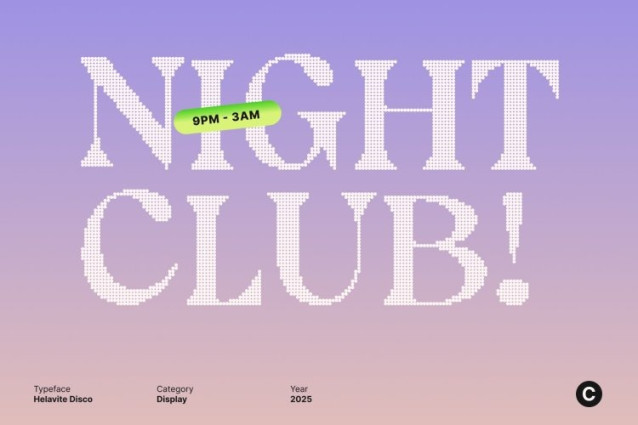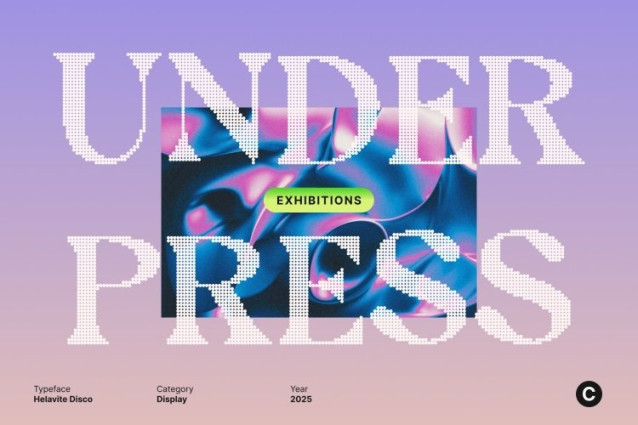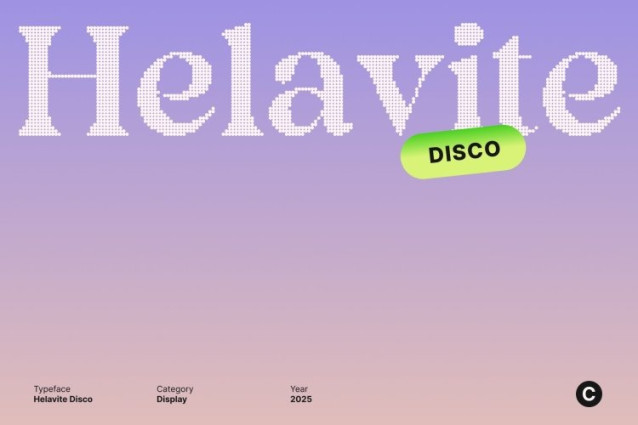
Helavite Disco Font
Helavite Disco Font is a modern serif display font that captures the glamour of disco culture with a refined, contemporary edge. Its elegant letterforms are enhanced by a shimmering vibe that evokes the glow of retro dance floors, creating a look that’s both nostalgic and modern.
Retro Influence with Modern Refinement
Blending vintage disco charm with modern serif precision, this font offers a unique visual rhythm. Its sleek curves and subtle contrasts create an elegant flow, while the retro shimmer effect adds a lively, radiant touch. This harmony of past and present makes the font ideal for projects that aim to feel timeless yet fresh.
Perfect for Branding and Artistic Displays
This font shines in luxury branding, editorial layouts, posters, and creative campaigns. Its graceful form and retro-inspired style bring a distinctive personality to every design, from fashion magazines to high-end event graphics. Whether used for headlines or logos, it delivers an elevated and memorable presence.
Stylish, Artistic, and Uniquely Radiant
This font embodies sophistication in motion a typeface where modern design meets disco sparkle. Its refined elegance and shimmering character transform text into art, making it the perfect choice for designers who want to blend glamour, creativity, and timeless beauty in their work.